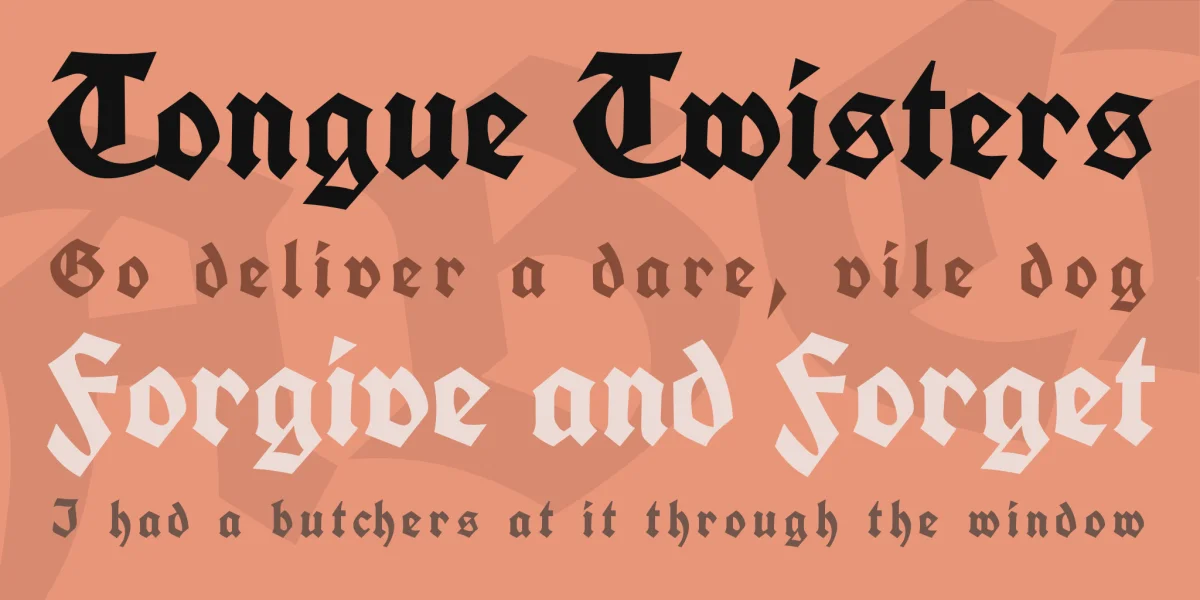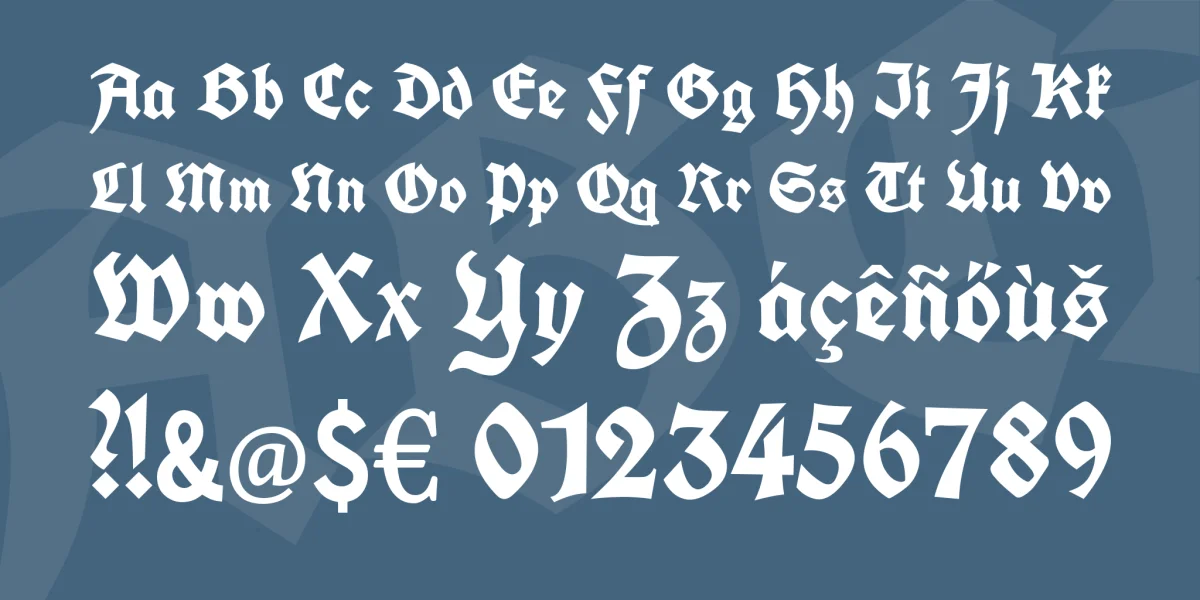
Rudolf Koch debut, initially called "German magazine", was such a bestseller that it was only later cooking fracture. The adaptation of written submissions to the needs of book printing and typesetting busy writing the budding champions over the years. Between 1908 and 1910 the fats German typeface was cut.
Koch himself saw the reason for the success of his German writing in their ability to bring the spirit of the times expressed. The concentrated principally expressed in Roman and maintained fractures, but the young talent cooking presented with the German writing something that literally jumped to the viewer's eyes - strong, plastic, black and alive. This font was stubborn, but convincing in a new direction.